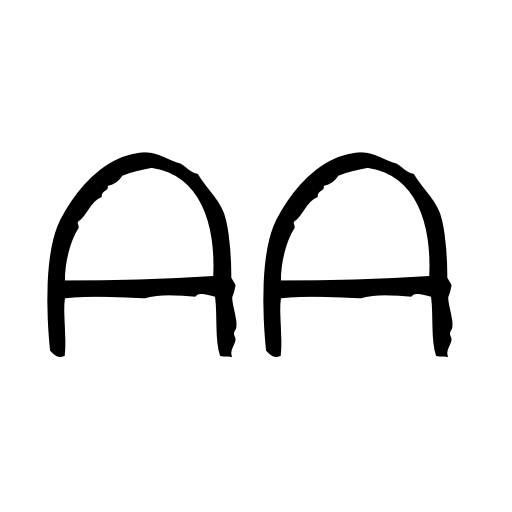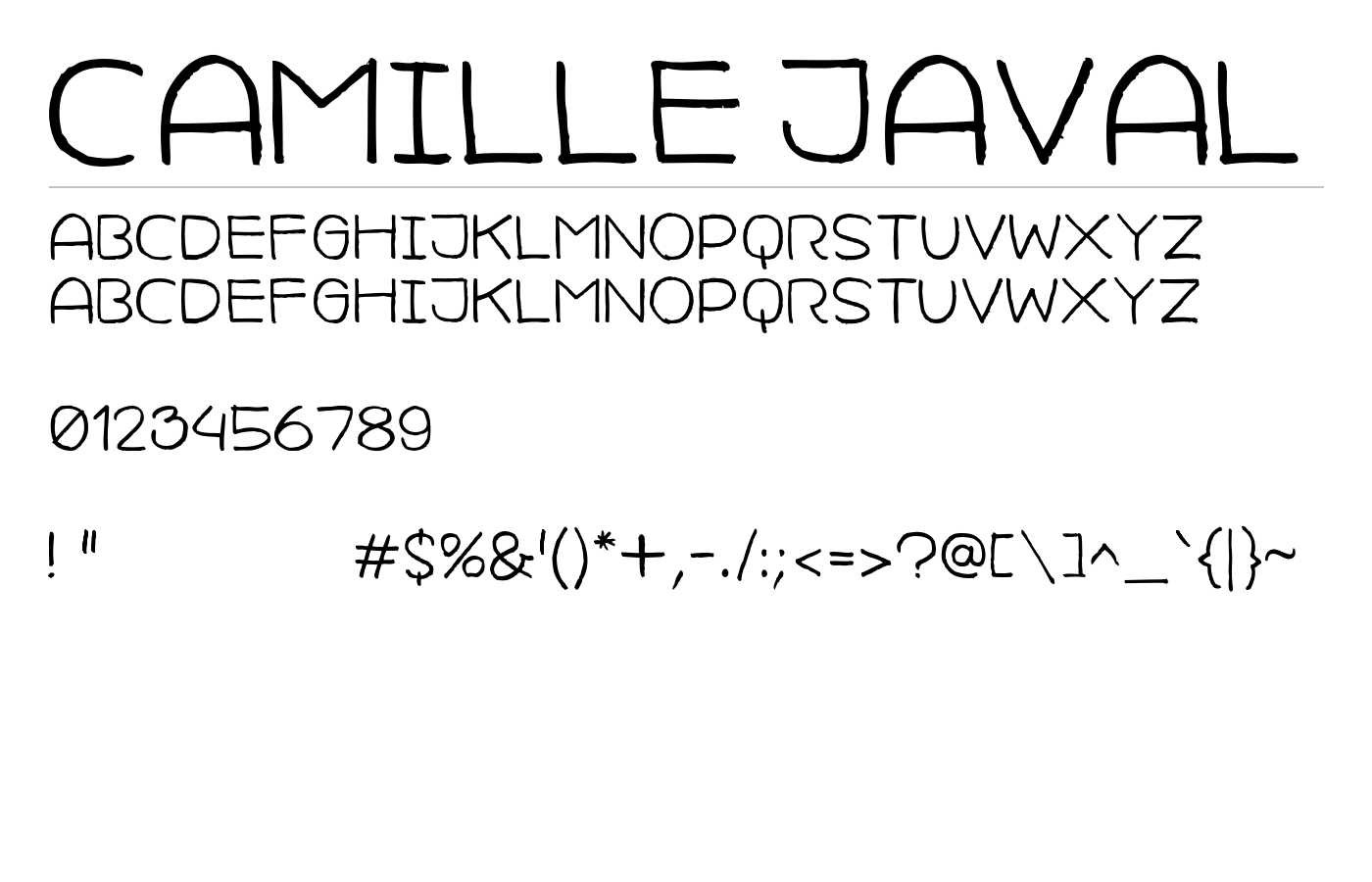
Camille Javal is a playful and casual handwritten sans serif font with a light weight and narrow width, featuring irregular strokes that give it a friendly, organic feel. Its tall x-height and simple, single-story letterforms make it highly legible, perfect for adding a personal touch to creative designs, children's materials, or informal branding. This font works well in headlines, logos, and packaging where a fresh and approachable style is desired.
Camille Javal Font
About Camille Javal Font
| Font family | Camille Javal Font |
| Designer | Lukas Gerber |